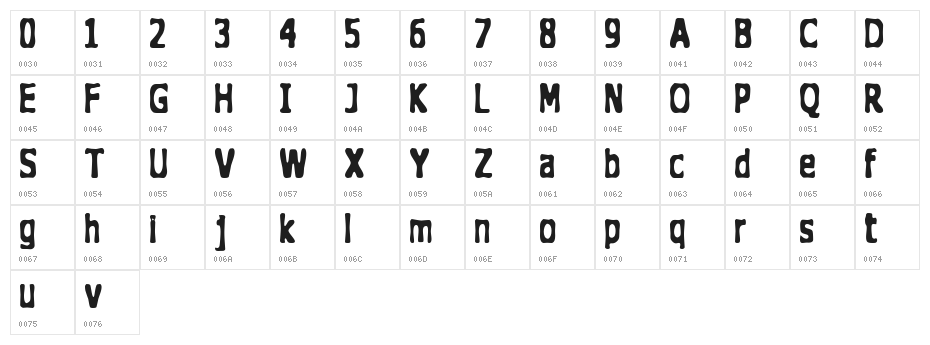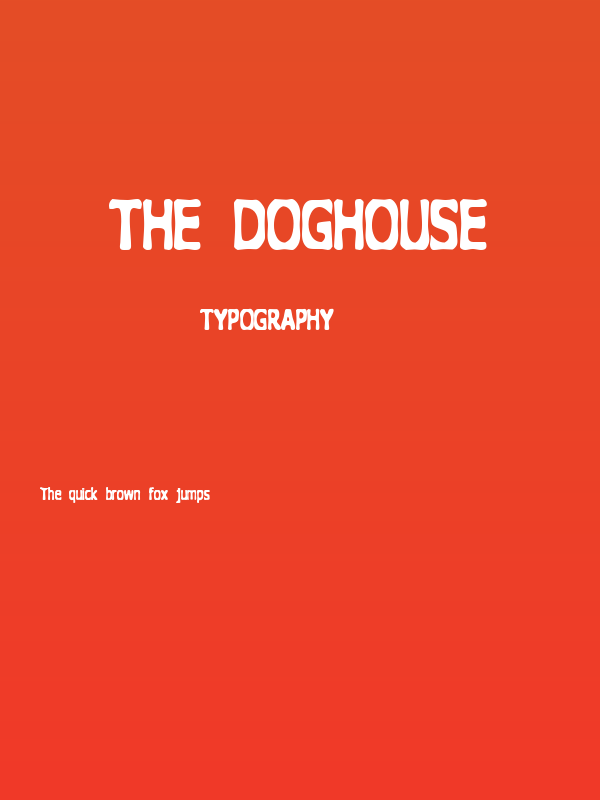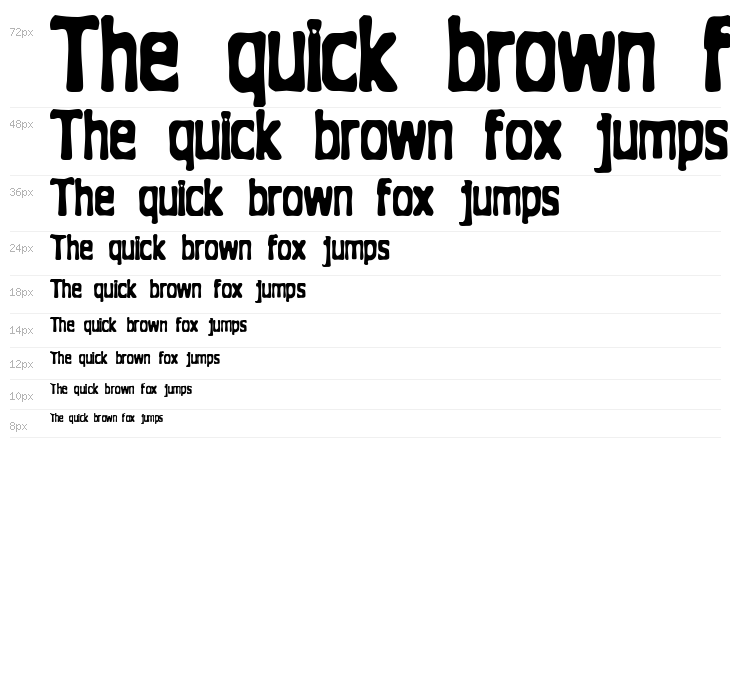
The Doghouse Font
The Doghouse Description
This font features a playful and bold design with a slightly irregular and hand-drawn appearance. The characters are thick and rounded, giving a friendly and approachable feel. The uppercase and lowercase letters maintain a consistent style, with the lowercase letters slightly smaller but equally bold. The numbers follow the same design principles, ensuring uniformity across all characters. The font lacks traditional serifs, emphasizing its modern and casual aesthetic. The overall look is reminiscent of a cartoon or comic style, making it suitable for informal and fun projects.
Overall StylePlayful, Comic
Proposed ProjectsIdeal for children's books, comic strips, playful branding, and informal posters.